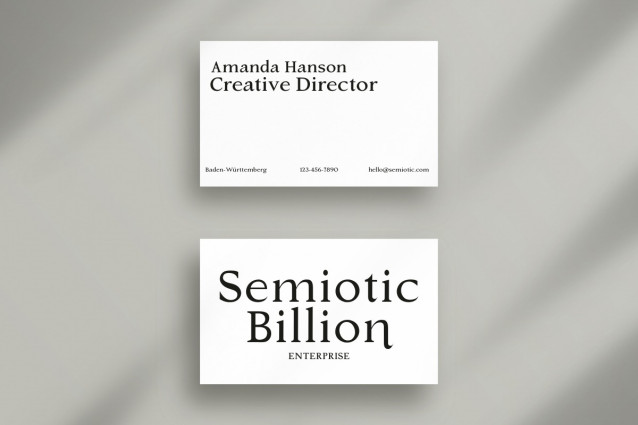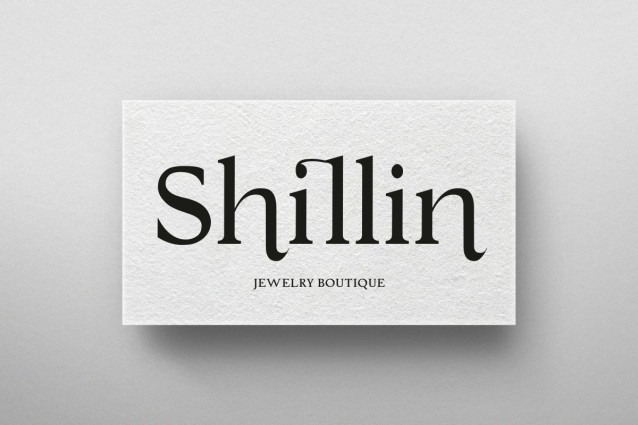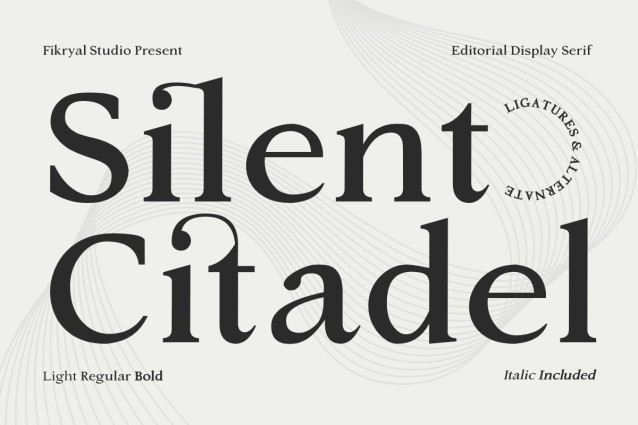
Silent Citadel Font
Silent Citadel Font is a refined editorial display serif designed to evoke authority, elegance, and timeless sophistication. Inspired by the quiet strength of classical architecture and the grandeur of historic fortresses, this typeface blends sharp serifs, graceful curves, and confident proportions into a commanding yet polished visual voice.
Crafted for high-impact typography, Silent Citadel is perfect for luxury branding, editorial headlines, fashion campaigns, premium packaging, and refined logo design. Its distinctive character structure balances dramatic contrast with controlled detailing, making every word feel intentional and elevated.